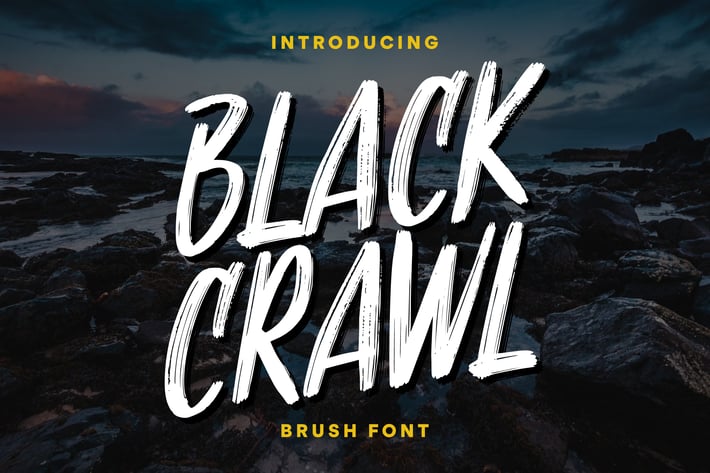
Blackcrawl – Bold Brush Font
Unleash the power of expressive, hand-drawn typography with Blackcrawl, a bold and captivating brush font designed to make your text stand out. Crafted with precision and an artistic touch, Blackcrawl combines the raw, dynamic energy of brush strokes with modern versatility. Perfect for designers, creators, and businesses, this font adds an authentic, handmade feel to any project.
Bold and Expressive: Each letter is carefully designed to capture the intensity and spontaneity of brush strokes, giving your text a fresh, artistic vibe.
Perfect for Various Applications: Ideal for branding, packaging, social media graphics, posters, apparel, quotes, and more.
Supports Multiple Languages: Blackcrawl includes a range of international characters to make your designs globally appealing.
Why Choose Blackcrawl?
If you're looking to infuse personality and an artistic edge into your projects, Blackcrawl is your font of choice. Its brush style is bold yet adaptable, working equally well in professional branding or creative DIY projects.